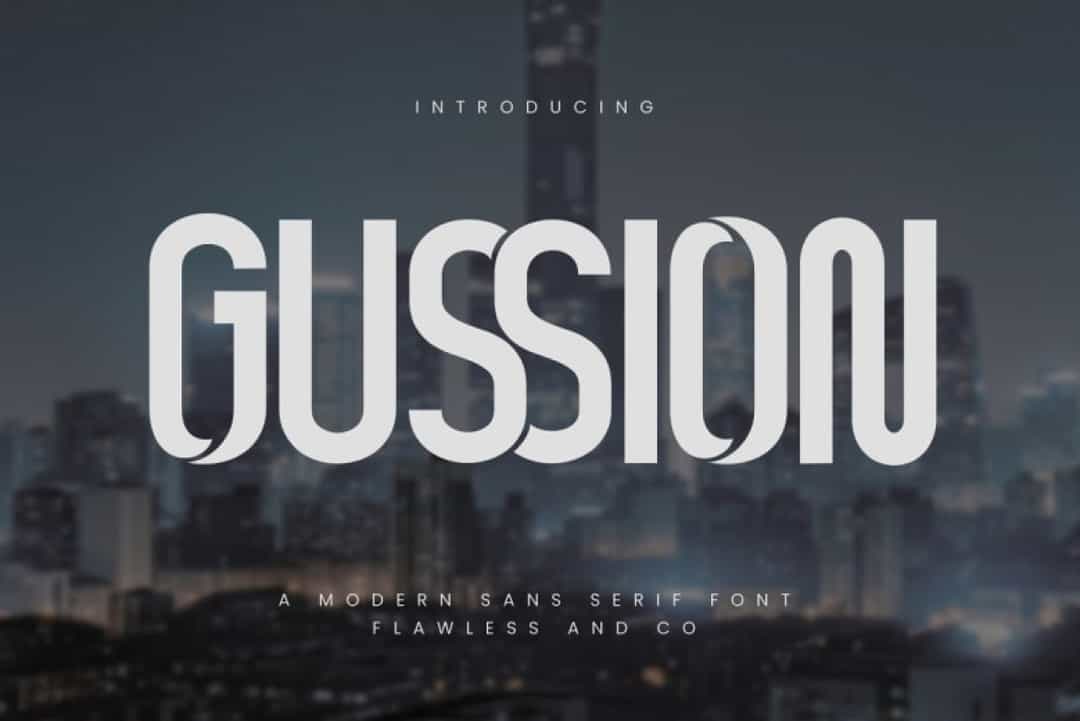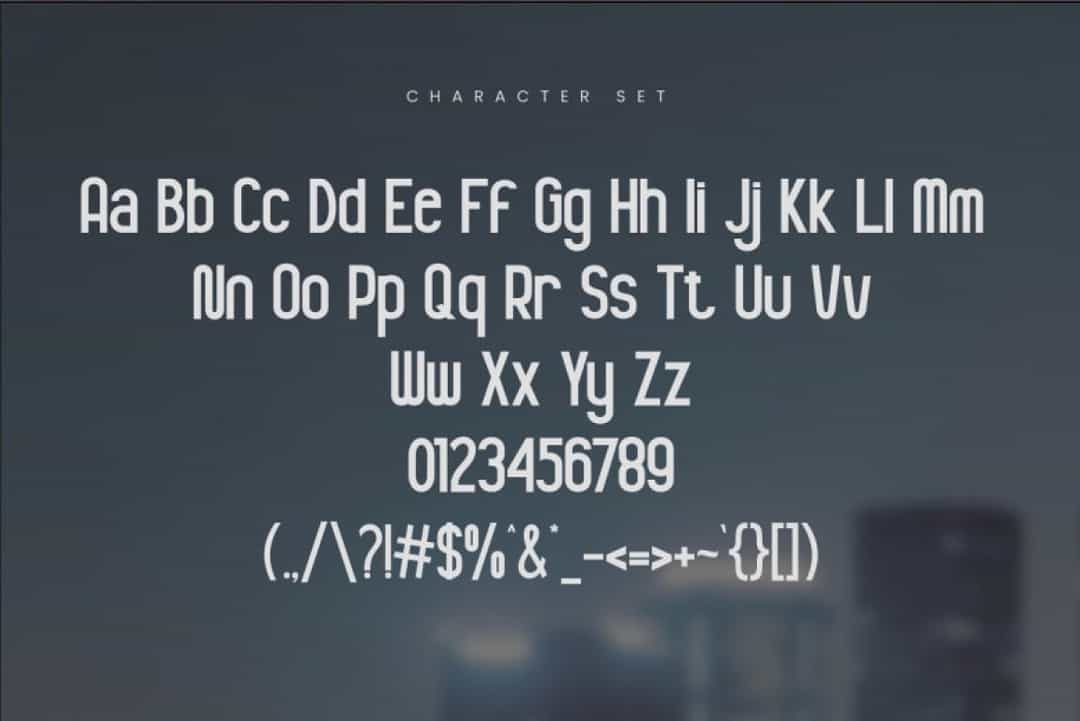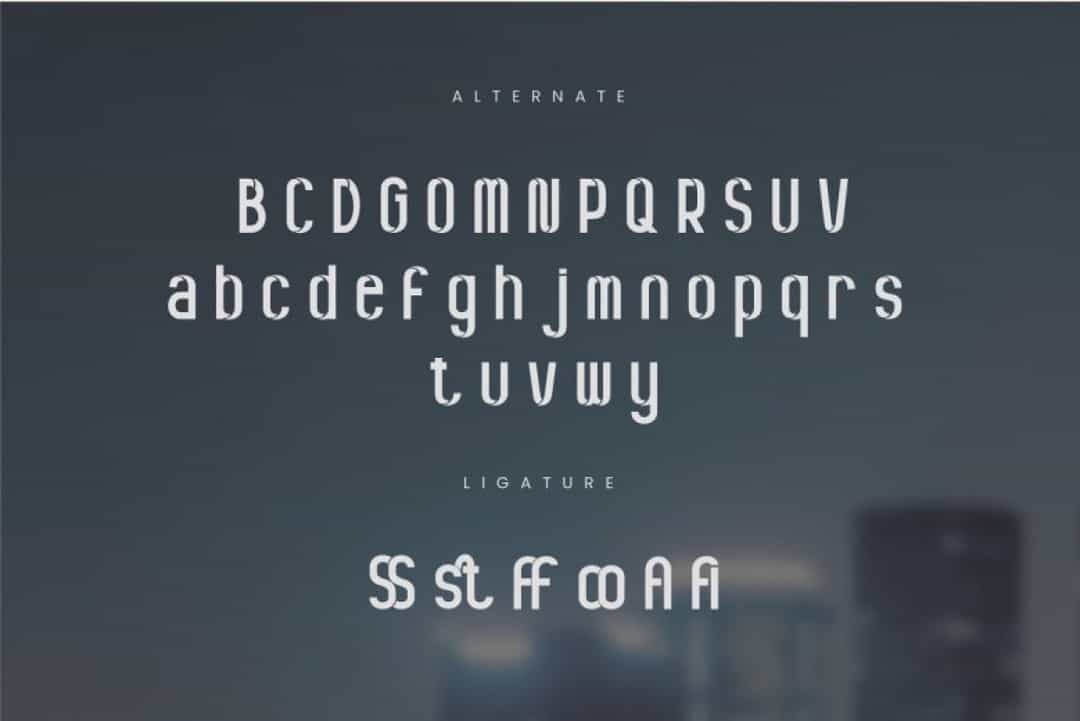
Gussion, our modern sans-serif typeface, effortlessly blends contemporary design with clean and classic lines for an eye-catching result. Its balanced proportions and elegant lines make Gussion an excellent option for any project related to design.